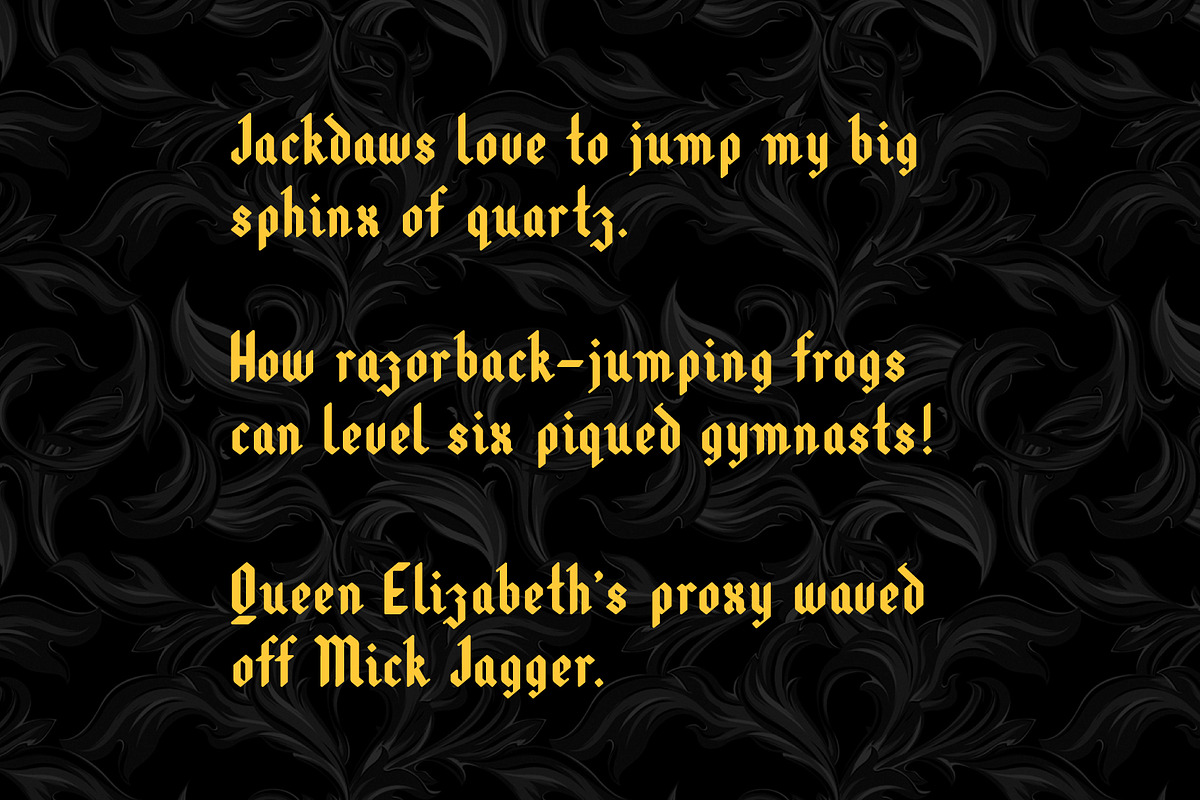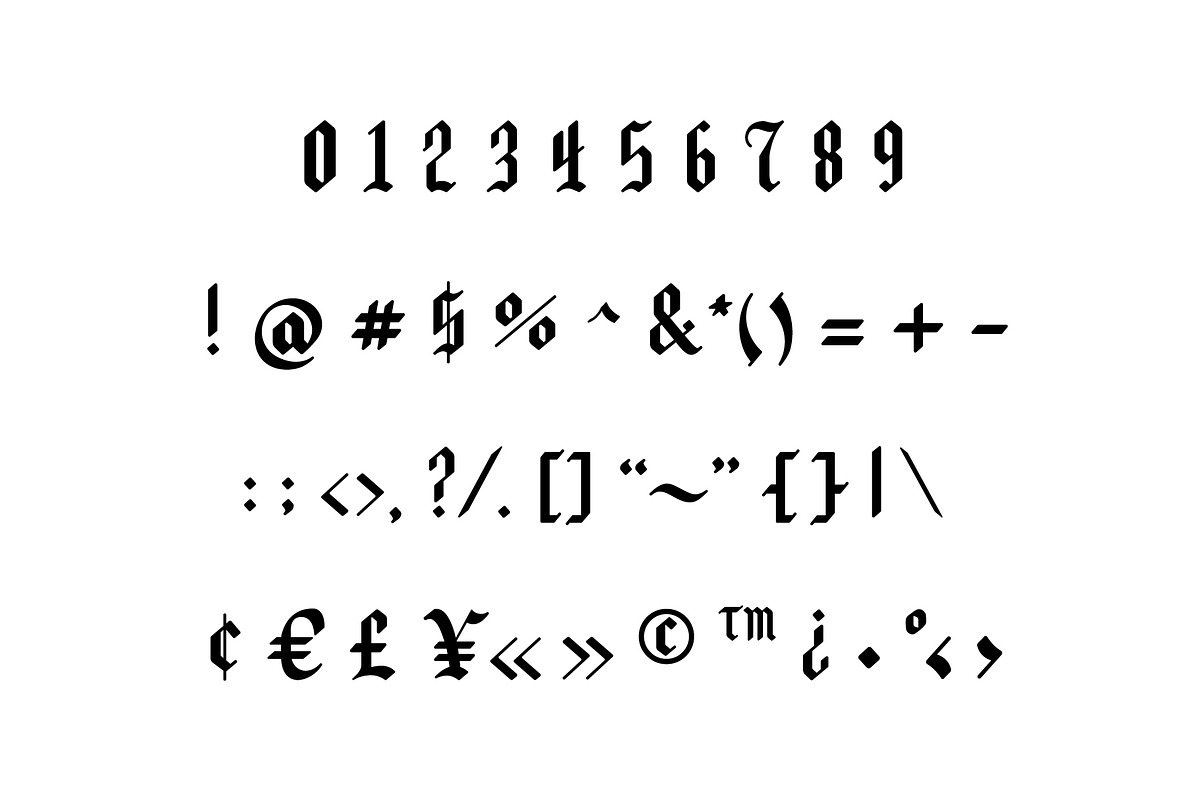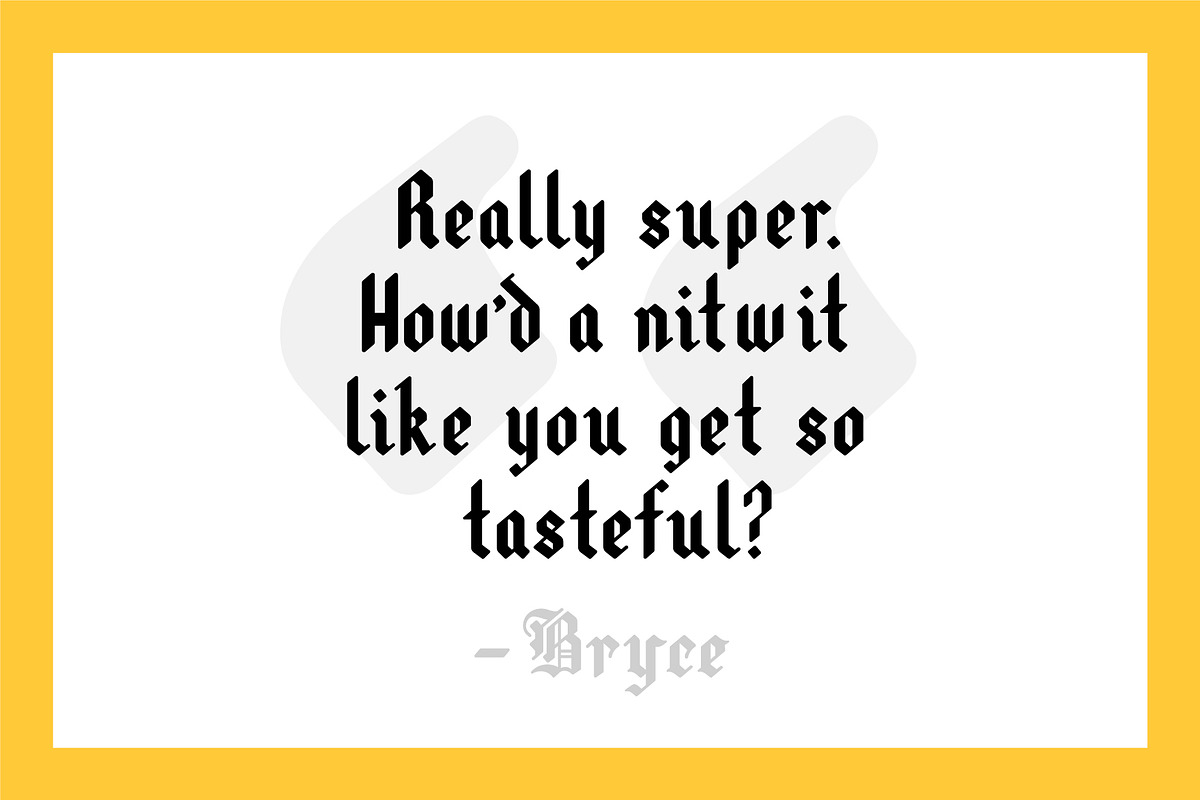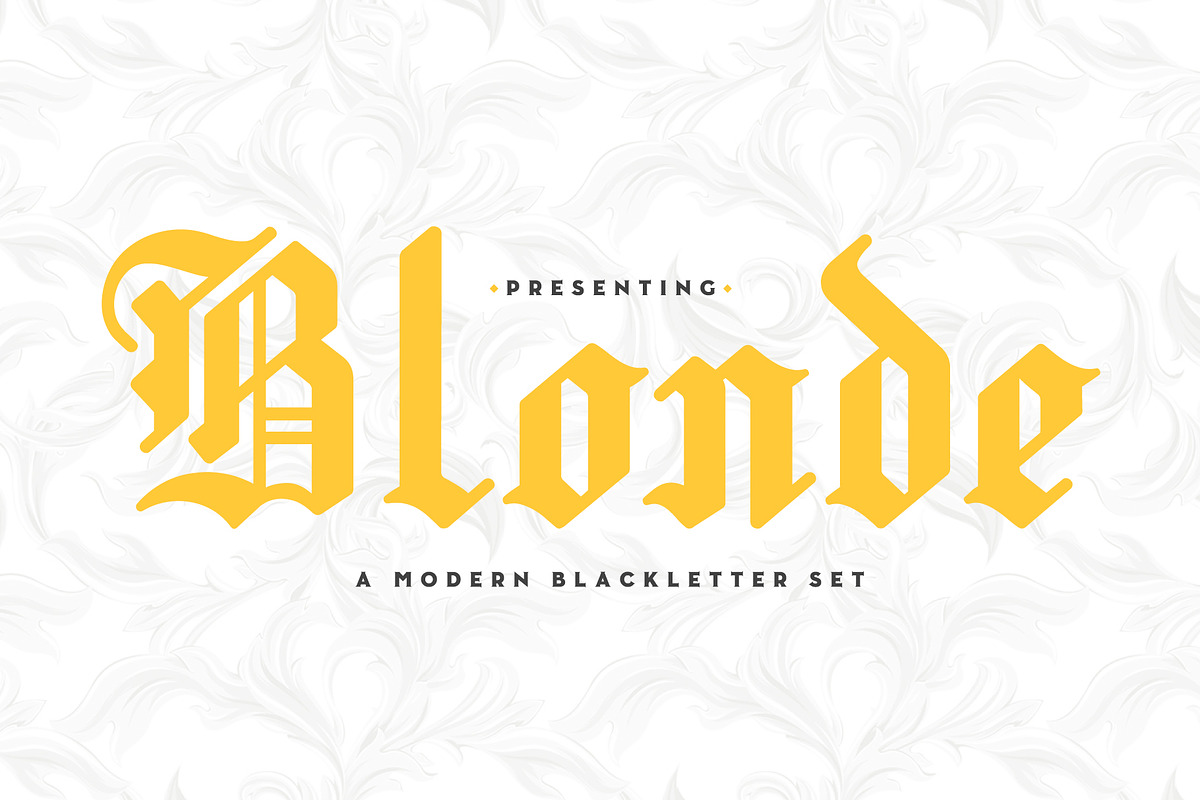
Blonde
Blonde is a modern blackletter family that consists of an ornate textura style typeface (serif) along with a complimentary rotunda style (sans). Both are based off a 50° stroke along with organically rounded features giving it a streamlined look and feel as opposed to a classic blackletter/old English set while still being very stylized and legible.
Named and inspired after my daughter, this set transcends a classic style into modern form. Perfect for logos, lettering, clothing, and stylized products.